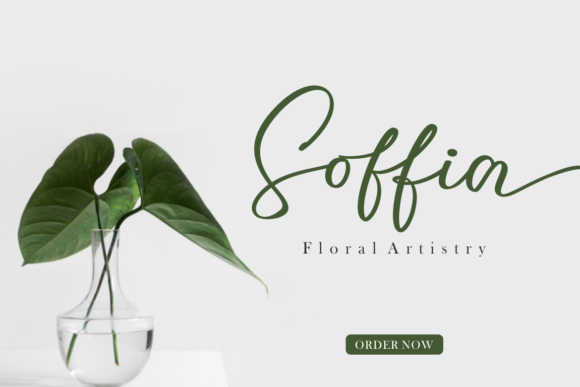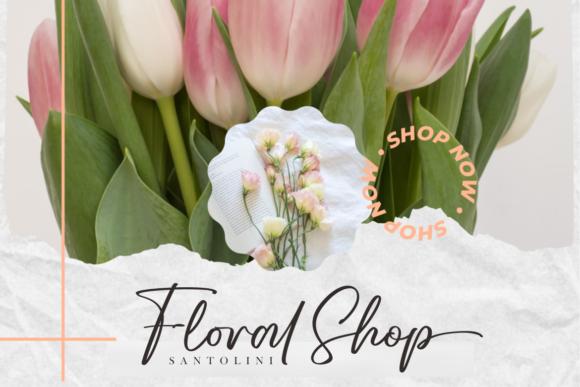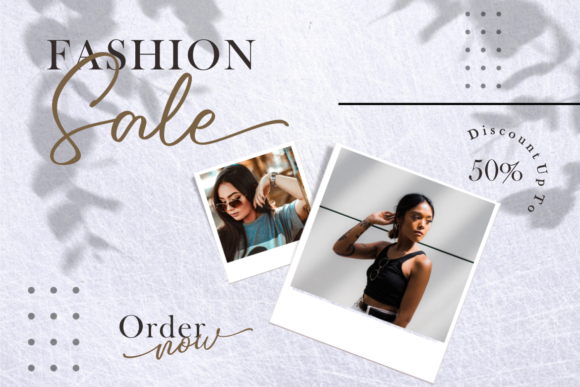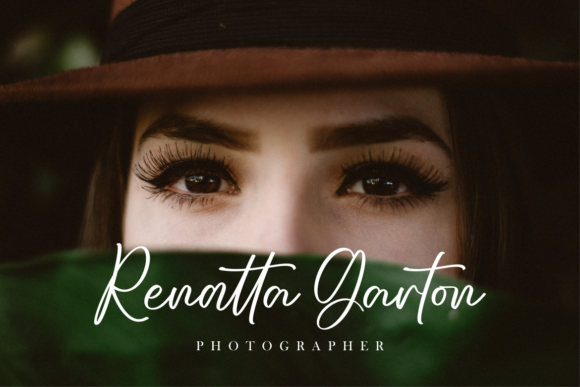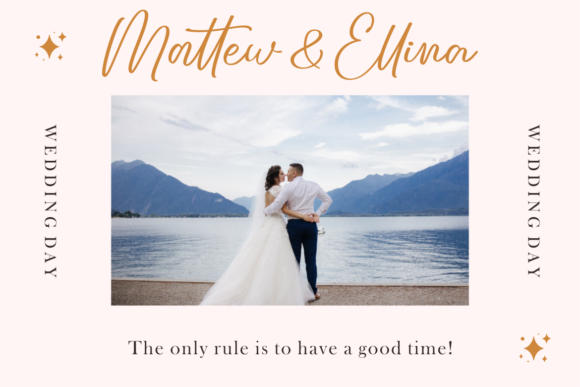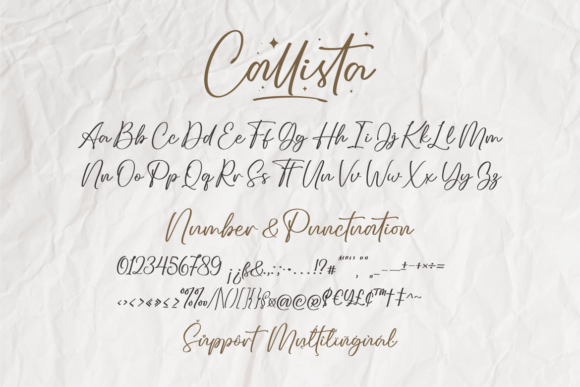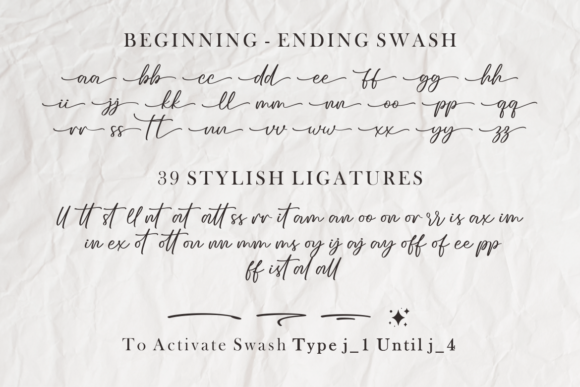
Callista Font
About Callista Font
Introducing Callista, a stylish and modern handwritten font. This font is characterized by its stylish and modern style, which creates a sense of authenticity and creativity. It’s not just a font, it’s a tool that brings your designs to life.
The characters in Callista are stylish and modern, adding a touch of personality to your designs. The font also includes PUA encoding, giving you the flexibility to access all glyphs and swashes with ease and customize your text to suit your design needs.
Callista is versatile and can be used in a variety of design projects. It’s perfect for greeting cards, where its stylish and modern style adds a touch of romance and sophistication. It’s also great for headlines, where its modern style conveys a sense of elegance and warmth.
One of the best features of Callista is its versatility. It’s a great choice for any design that needs a stylish and modern touch. Whether it’s a poster, a brochure, a website, or a social media post, Callista can make your designs more appealing and engaging.
In conclusion, Callista is more than just a font. It’s a design asset that can elevate your work and make it stunning. Whether you’re designing a logo, crafting a social media post, or creating a movie title, Callista can help you achieve your design goals. So why wait? Start creating stunning work with Callista today!